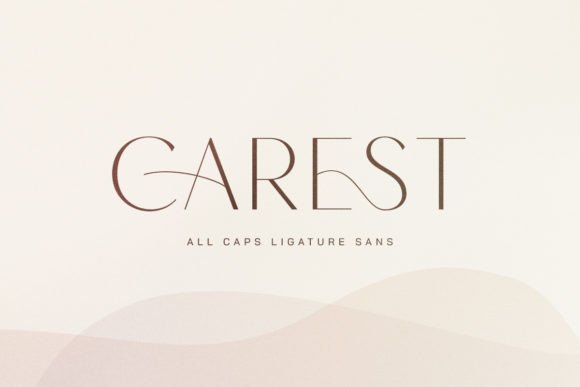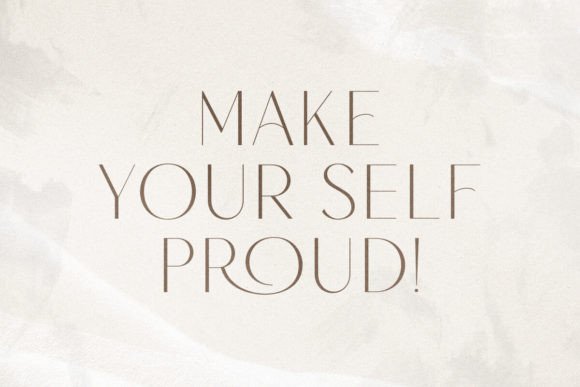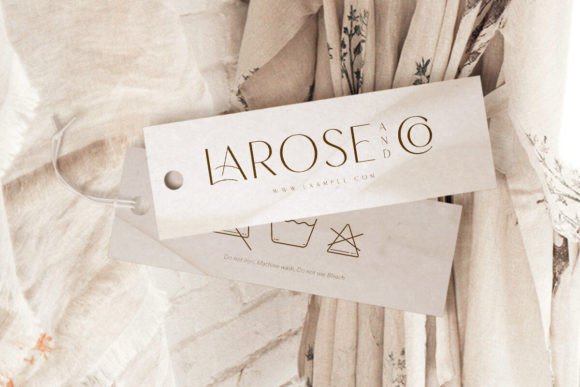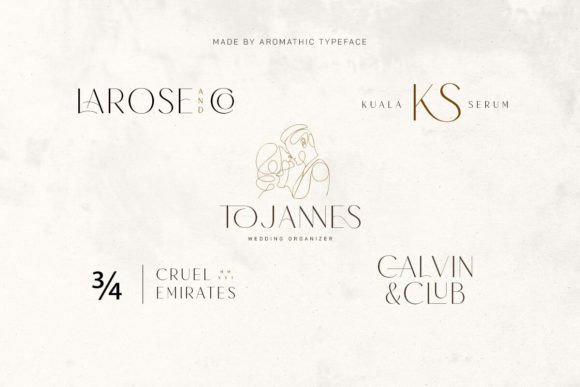
Carest Font: Modern Ligature Sans Serif for Elegant Logo Design
About the Carest Font
Let us introduce you to Carest Font, where timeless design meets modern craftsmanship. Carest is a sleek and modern sans-serif font that epitomizes contemporary design. Its clean lines and minimalist aesthetic make it perfect for cutting-edge branding, digital interfaces, and stylish editorial layouts. Enhance your projects with the refined simplicity and versatility of this sophisticated typeface.
Carest Font Usage Examples
Carest Font Example